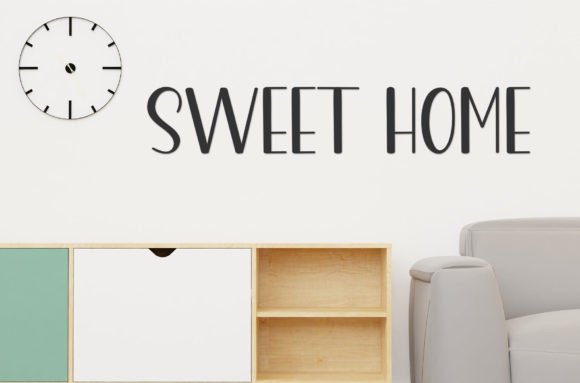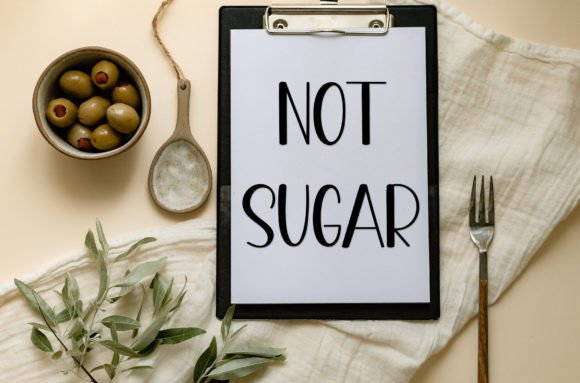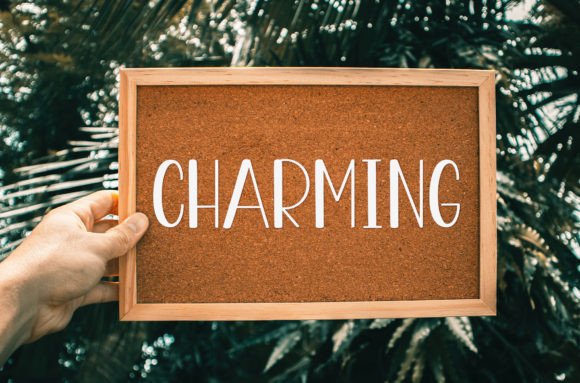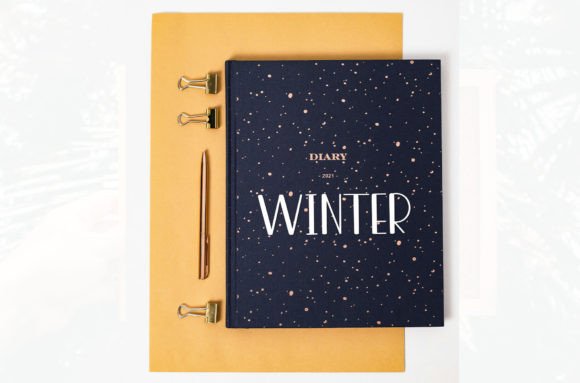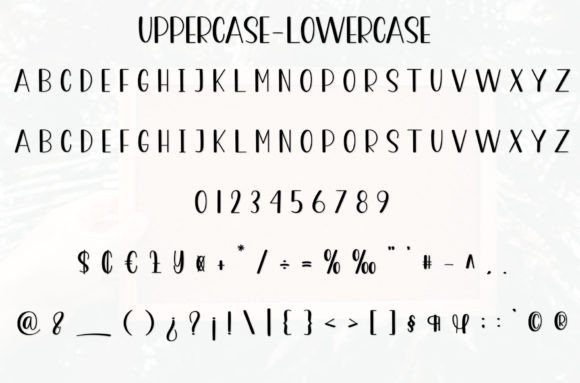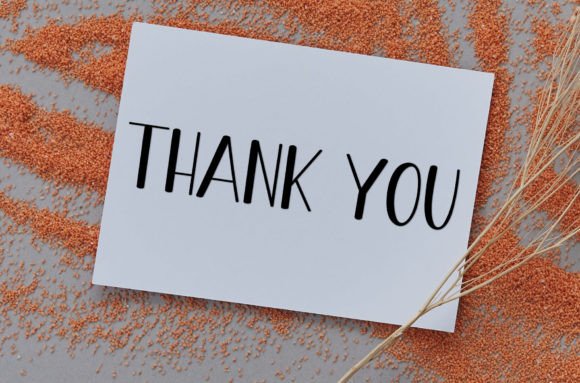
Cyndrome Font: The Ultimate Modern Sans-Serif Font for Designers and Crafters
Are you tired of using the same old fonts for your digital designs, presentations, and craft projects? Look no further than Cyndrome Font, a cool and modern sans-serif font that’s about to become your new go-to font for any occasion. In this article, we’ll dive into the features and benefits of Cyndrome Font, and explore how it can elevate your designs and crafts to the next level.
What is Cyndrome Font?
Cyndrome Font is a sleek and contemporary sans-serif font that’s perfect for designers, crafters, and anyone looking for a fresh and modern typography solution. Its clean lines, simple shapes, and highly legible design make it an excellent choice for a wide range of applications, from digital designs and presentations to greeting cards and craft projects.
Key Features of Cyndrome Font
- Modern and sleek design: Cyndrome Font boasts a modern and sleek design that’s perfect for creating visually appealing designs and crafts.
- Highly legible: The font’s simple shapes and clean lines ensure that it’s highly legible, even at small sizes.
- Versatile: Cyndrome Font can be used for a wide range of applications, including digital designs, presentations, greeting cards, and craft projects.
- Easy to read: The font’s clear and concise design makes it easy to read, even for extended periods.
Benefits of Using Cyndrome Font
So why should you choose Cyndrome Font for your next design or craft project? Here are just a few benefits of using this amazing font:
- Adds a touch of modernity: Cyndrome Font’s sleek and modern design adds a touch of sophistication and modernity to any design or craft project.
- Improves legibility: The font’s highly legible design ensures that your text is easy to read, even for audiences with visual impairments.
- Enhances creativity: Cyndrome Font’s versatile design and wide range of applications make it the perfect choice for designers and crafters looking to push their creative boundaries.
- Saves time: With Cyndrome Font, you can create professional-looking designs and crafts in no time, thanks to its easy-to-use design and highly legible text.
How to Use Cyndrome Font
Using Cyndrome Font is easy! Here are just a few ways you can incorporate this amazing font into your next design or craft project:
- Digital designs: Use Cyndrome Font to add a touch of modernity to your digital designs, including social media graphics, blog posts, and website headers.
- Presentations: Make your presentations stand out with Cyndrome Font’s sleek and modern design.
- Greeting cards: Add a personal touch to your greeting cards with Cyndrome Font’s highly legible and versatile design.
- Craft projects: Use Cyndrome Font to add a touch of sophistication to your craft projects, including handmade cards, scrapbooking, and DIY decorations.
Tips and Tricks for Getting the Most Out of Cyndrome Font
Here are just a few tips and tricks for getting the most out of Cyndrome Font:
- Experiment with different sizes: Cyndrome Font looks great at a wide range of sizes, from small and delicate to large and bold.
- Pair with other fonts: Try pairing Cyndrome Font with other fonts to create a unique and visually appealing typography solution.
- Use it consistently: Use Cyndrome Font consistently throughout your design or craft project to create a cohesive and professional look.